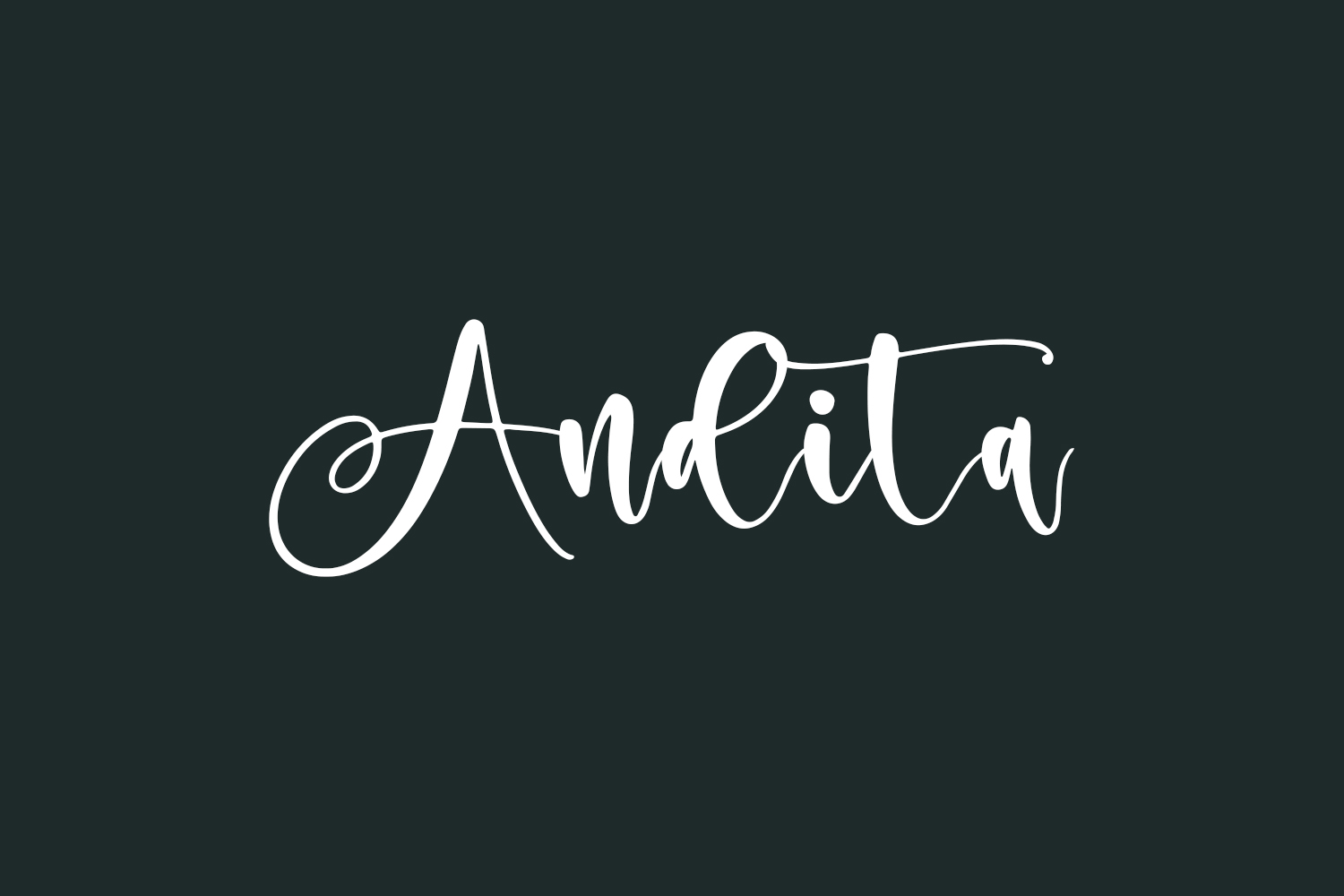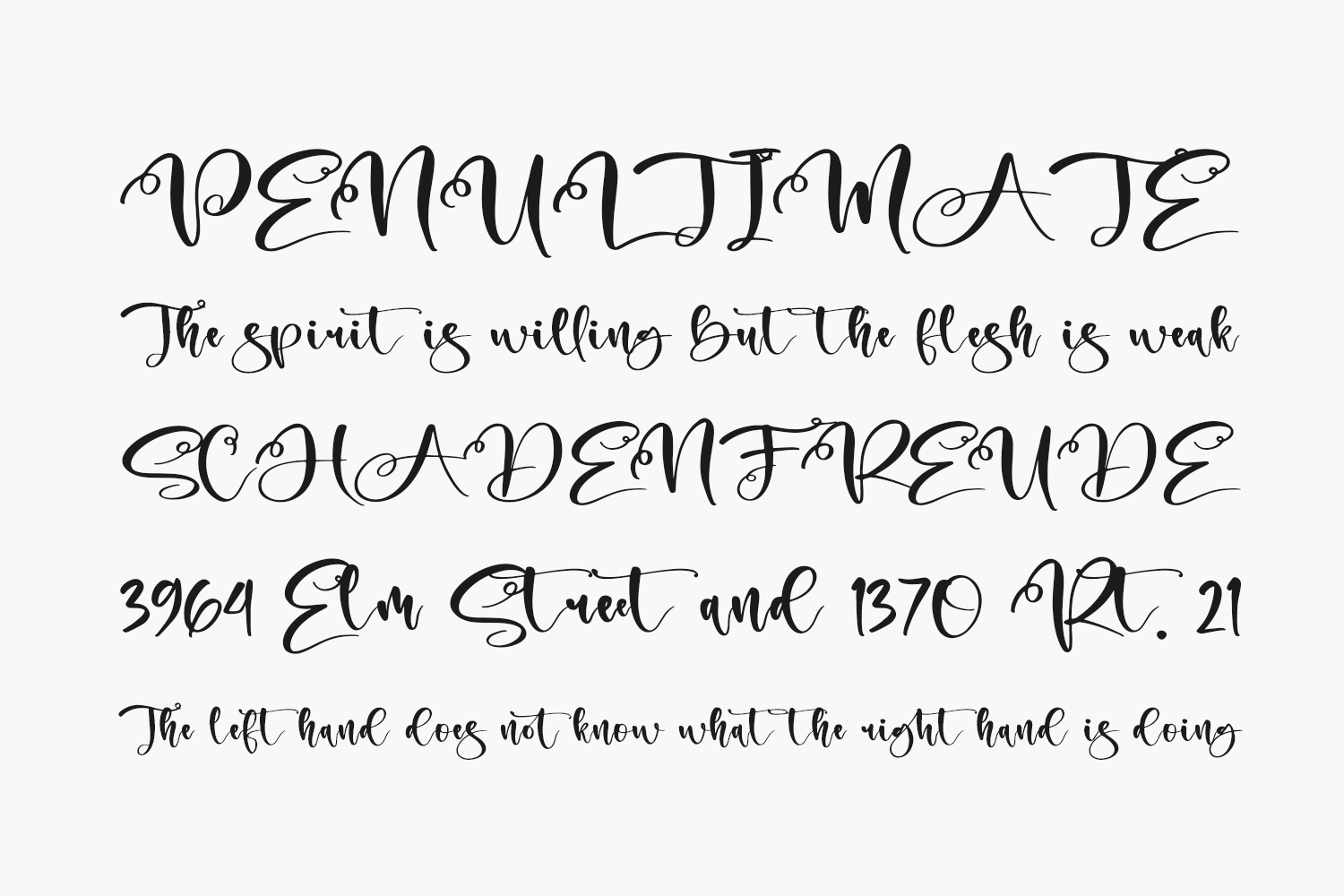
Andita Free Font exudes a delightful and sophisticated charm. Its beauty truly shines on wedding invitations, thank you cards, quotes, greeting cards, logos, business cards, and any design seeking that perfect handwritten allure. Andita Free Font is free for personal use only. Please purchase the full version for commercial use.
Designed by Letterena Studios